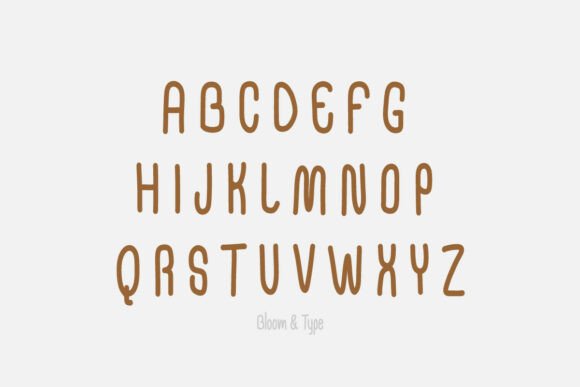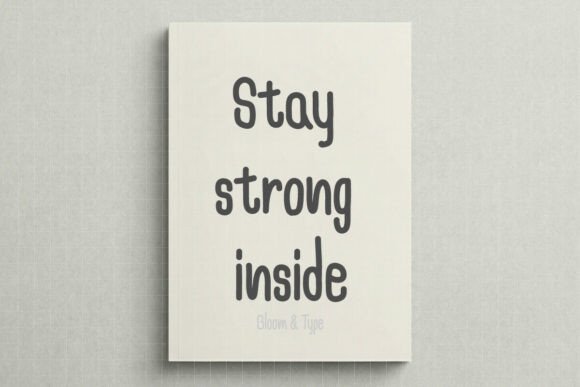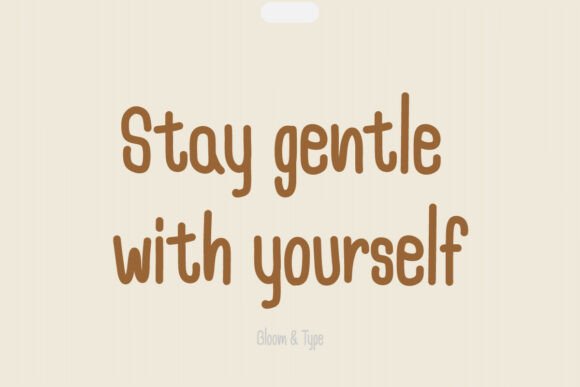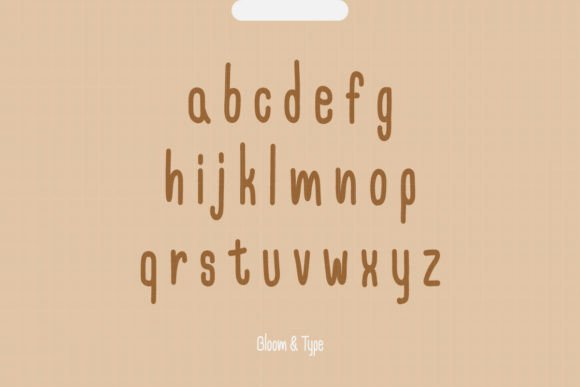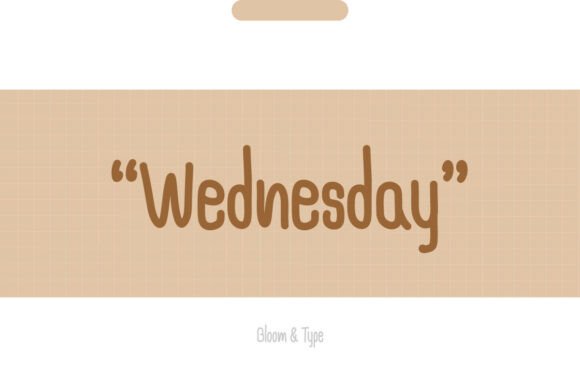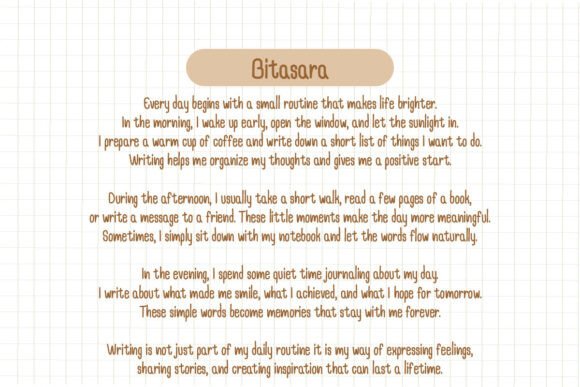
The Bitasara Font: A Soft, Handwritten Gem for Your Designs
A Personal Review of Bitasara
- ✨ Soft and handwritten, with a warm, natural feel
- ✅ Clean yet friendly personality, perfect for modern and approachable designs
- ✅ Easy to read, with a unique and charming look
- ✅ Includes uppercase, lowercase, numbers, punctuation, and multilingual characters
- ⚠️ Some users might find the font a bit too delicate for certain design projects
- 🤔 Limited availability of stylistic alternates, which might limit creative experimentation
The Story Behind Bitasara
Bitasara was designed with the intention of creating a font that feels both modern and approachable. The designer aimed to craft a font that would bring a warm, natural feel to designs, making it perfect for projects that require a personal touch. While the real story behind Bitasara remains a mystery, it’s clear that the font has been carefully crafted to meet the needs of designers and creatives.
Q: What type of projects is Bitasara best suited for?
A: Bitasara is perfect for designs that require a warm, natural feel, such as inspirational quotes, lifestyle content, and creative branding.
Q: Does Bitasara include multilingual characters?
A: Yes, Bitasara includes multilingual characters, making it a great choice for designs that require support for multiple languages.